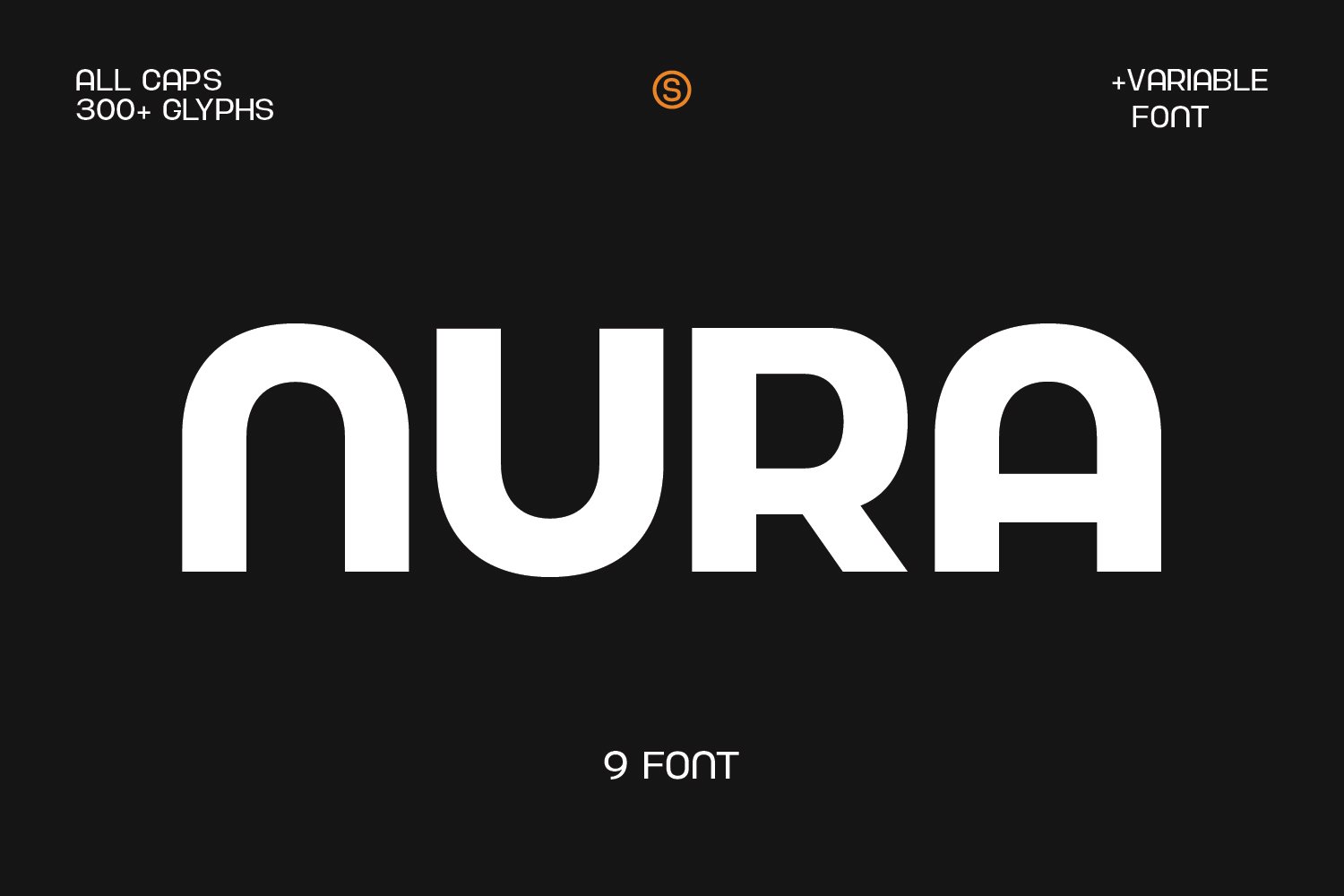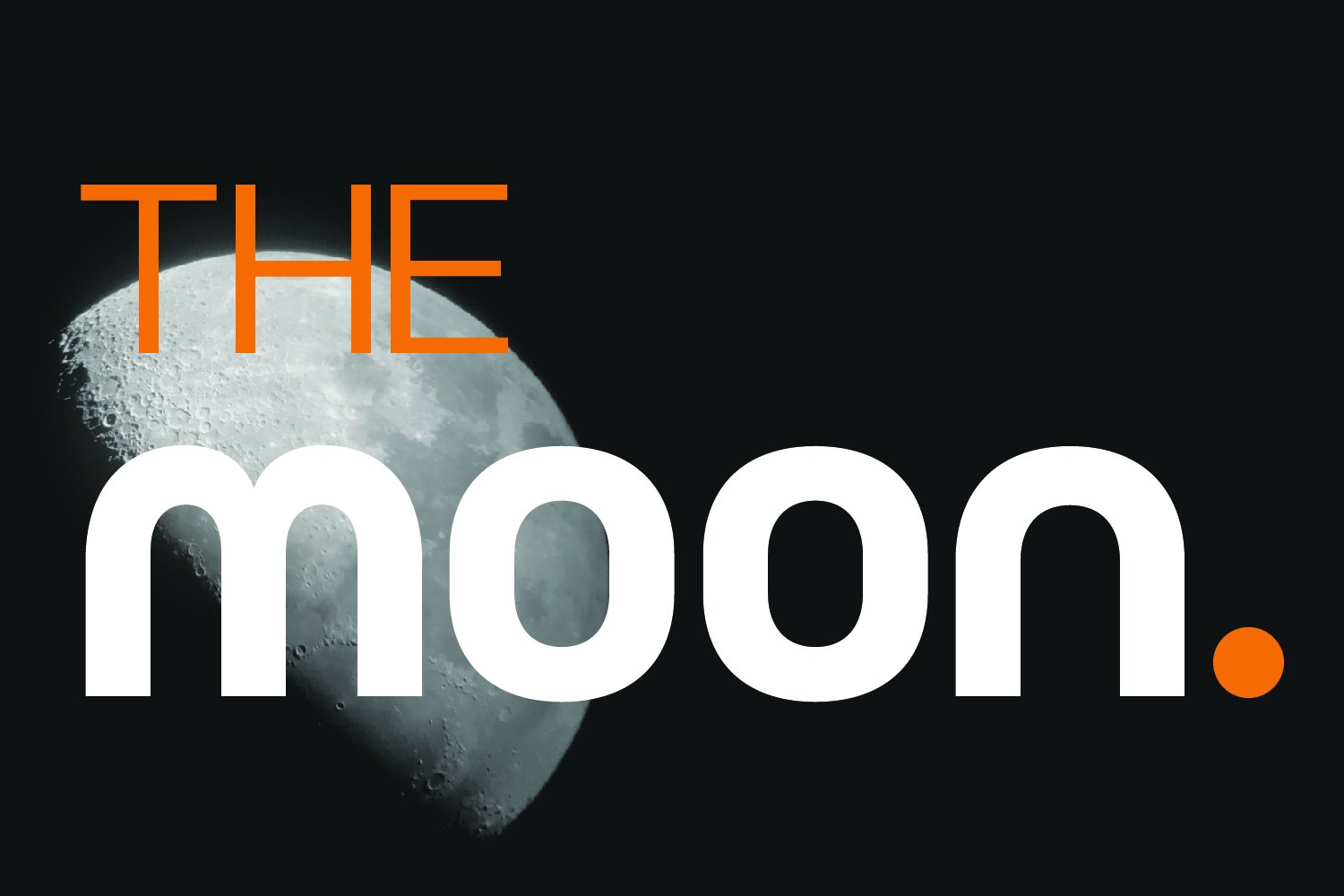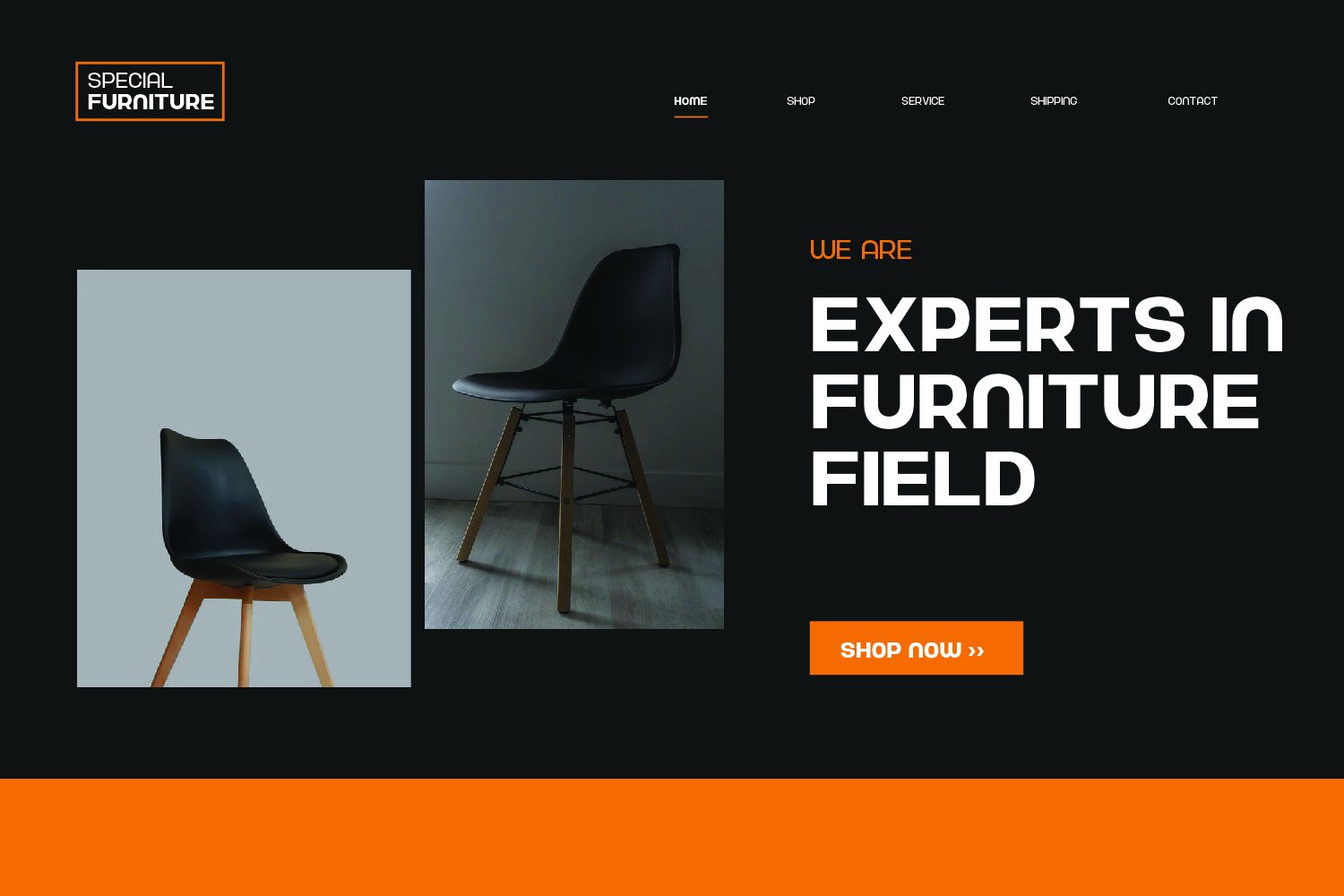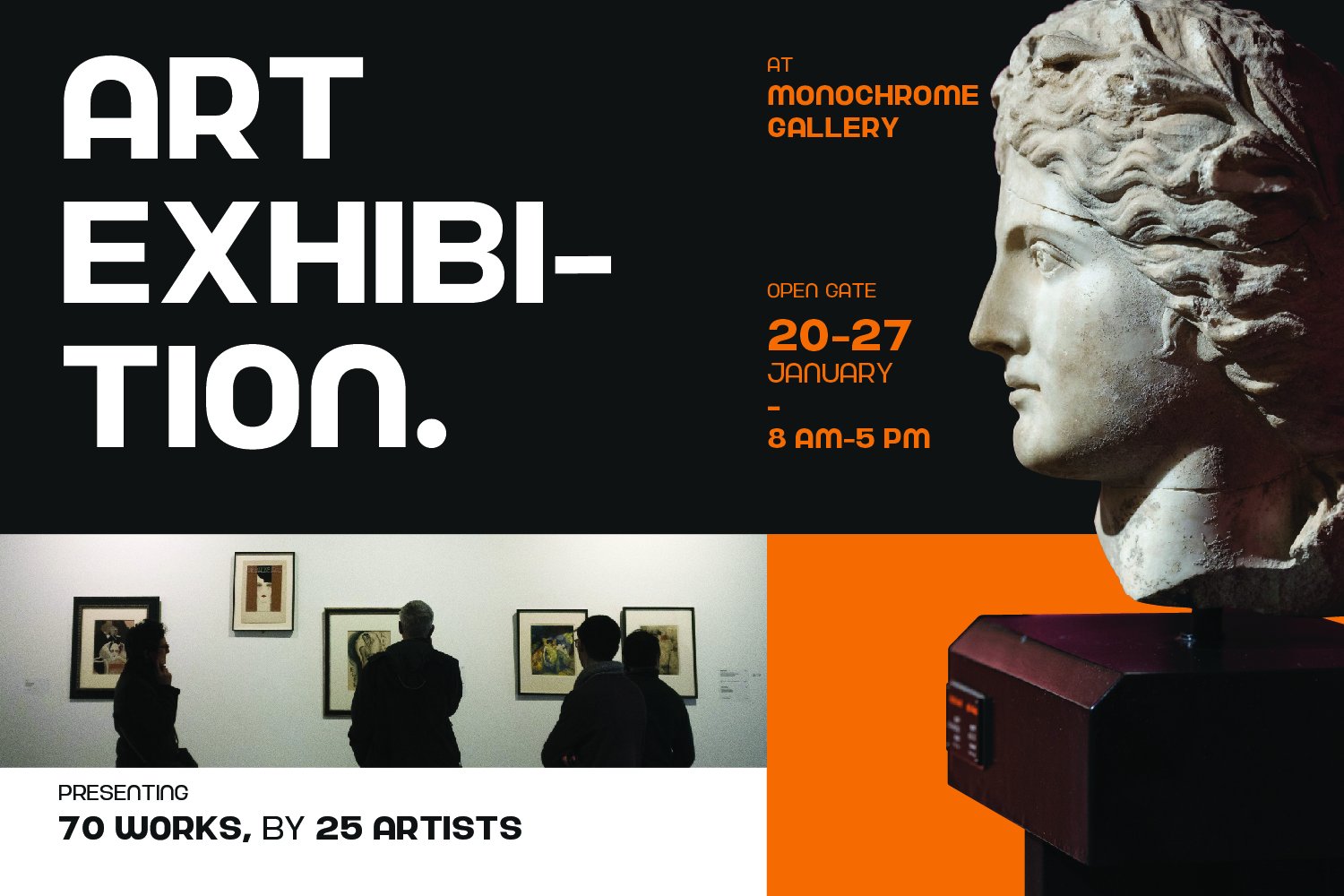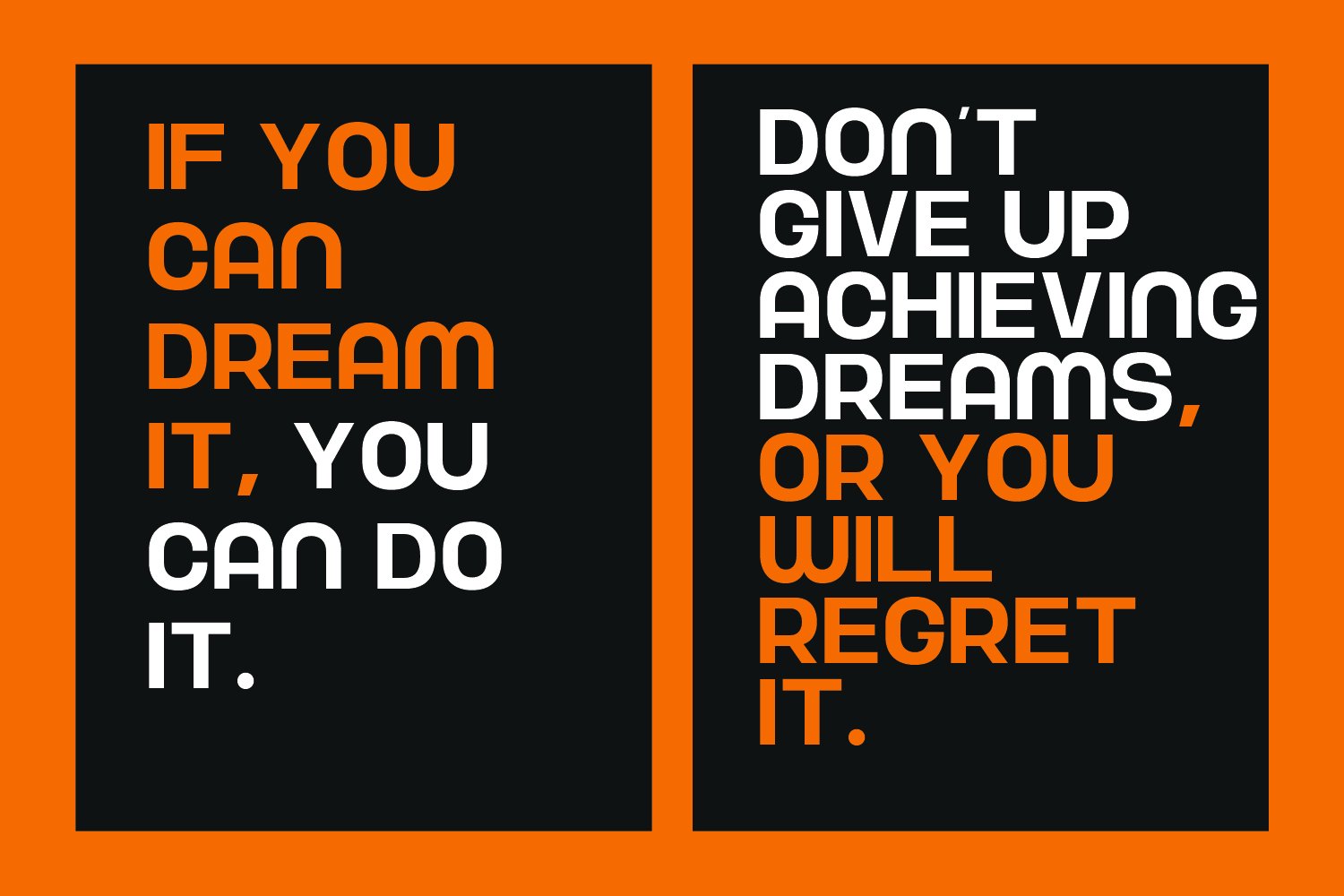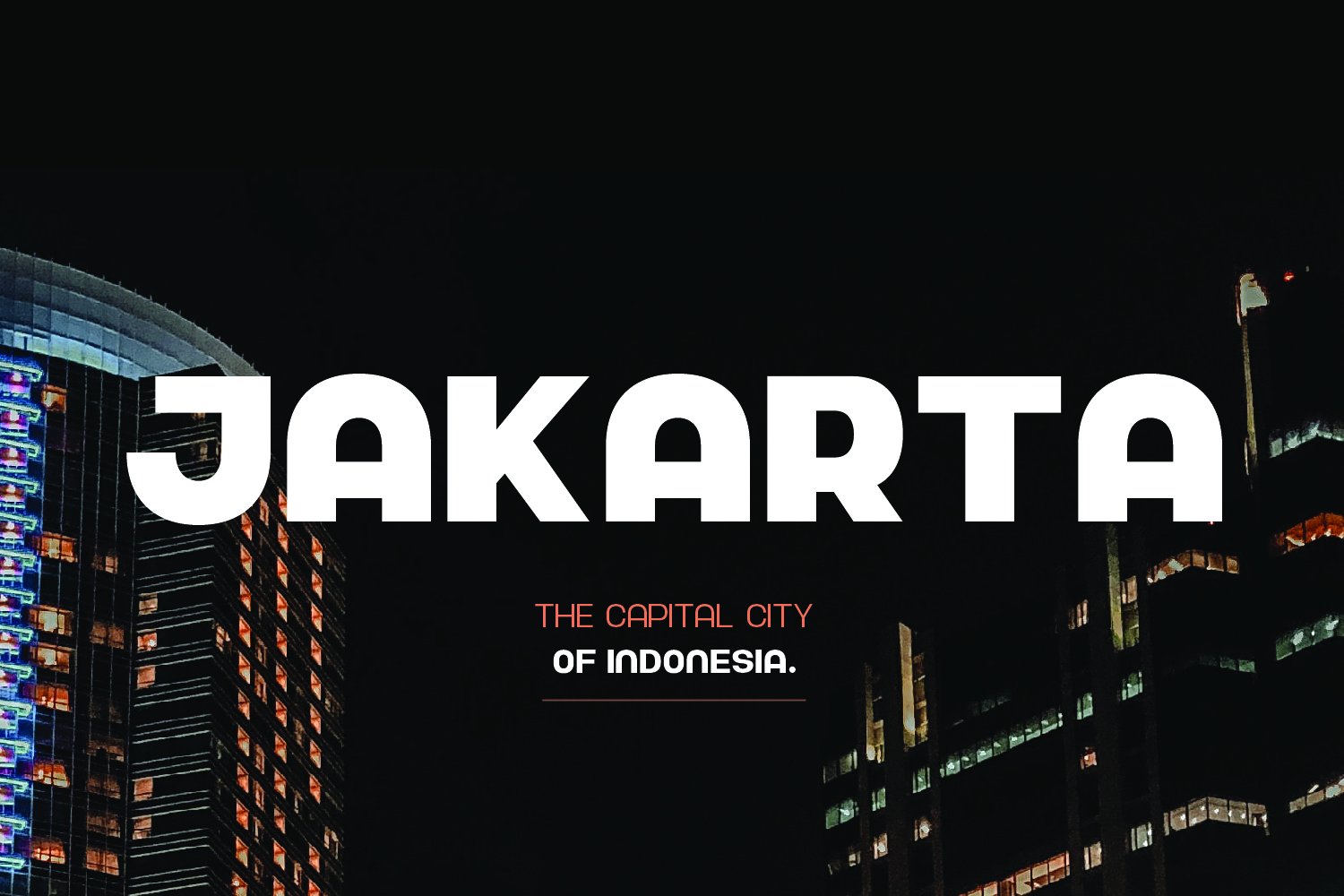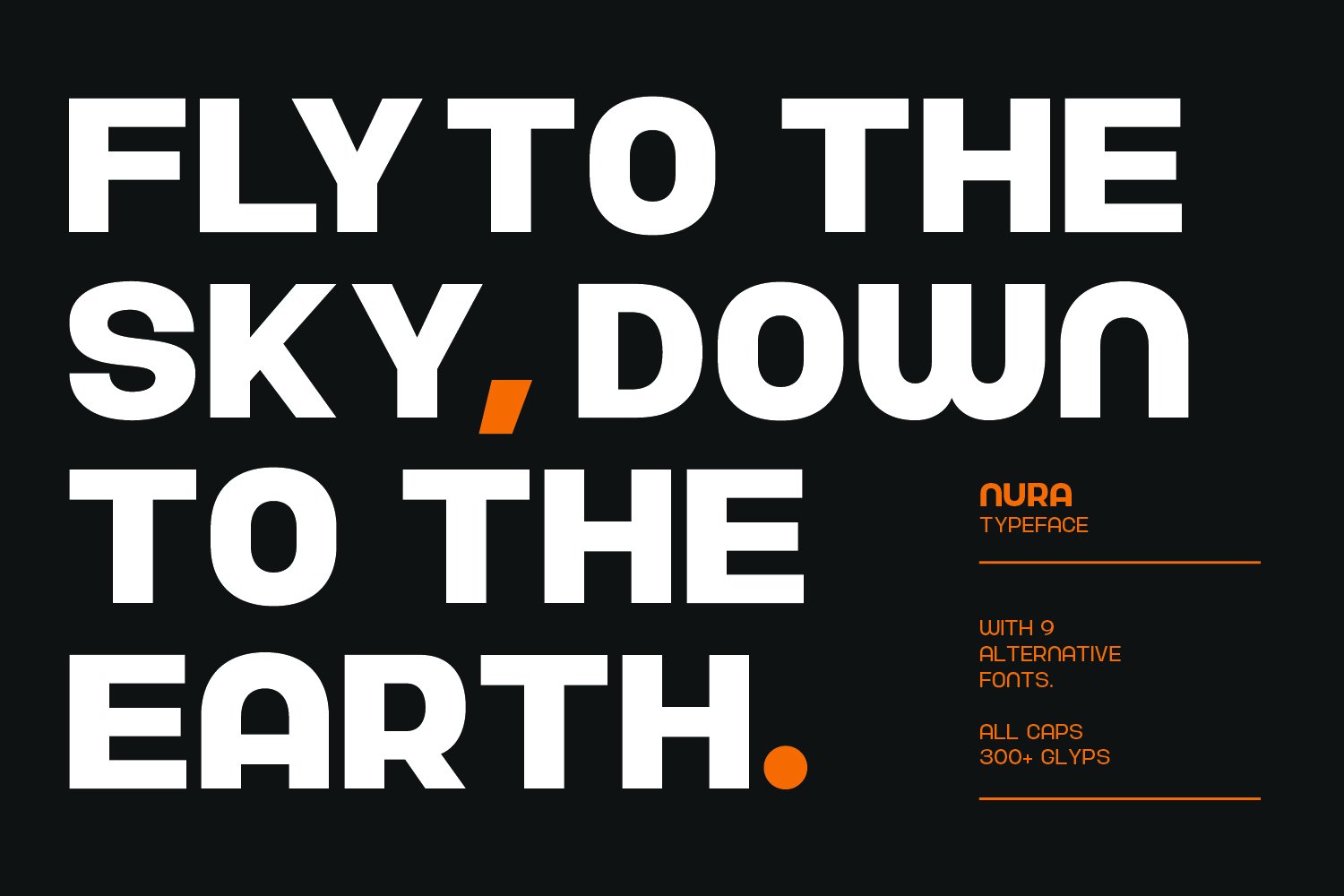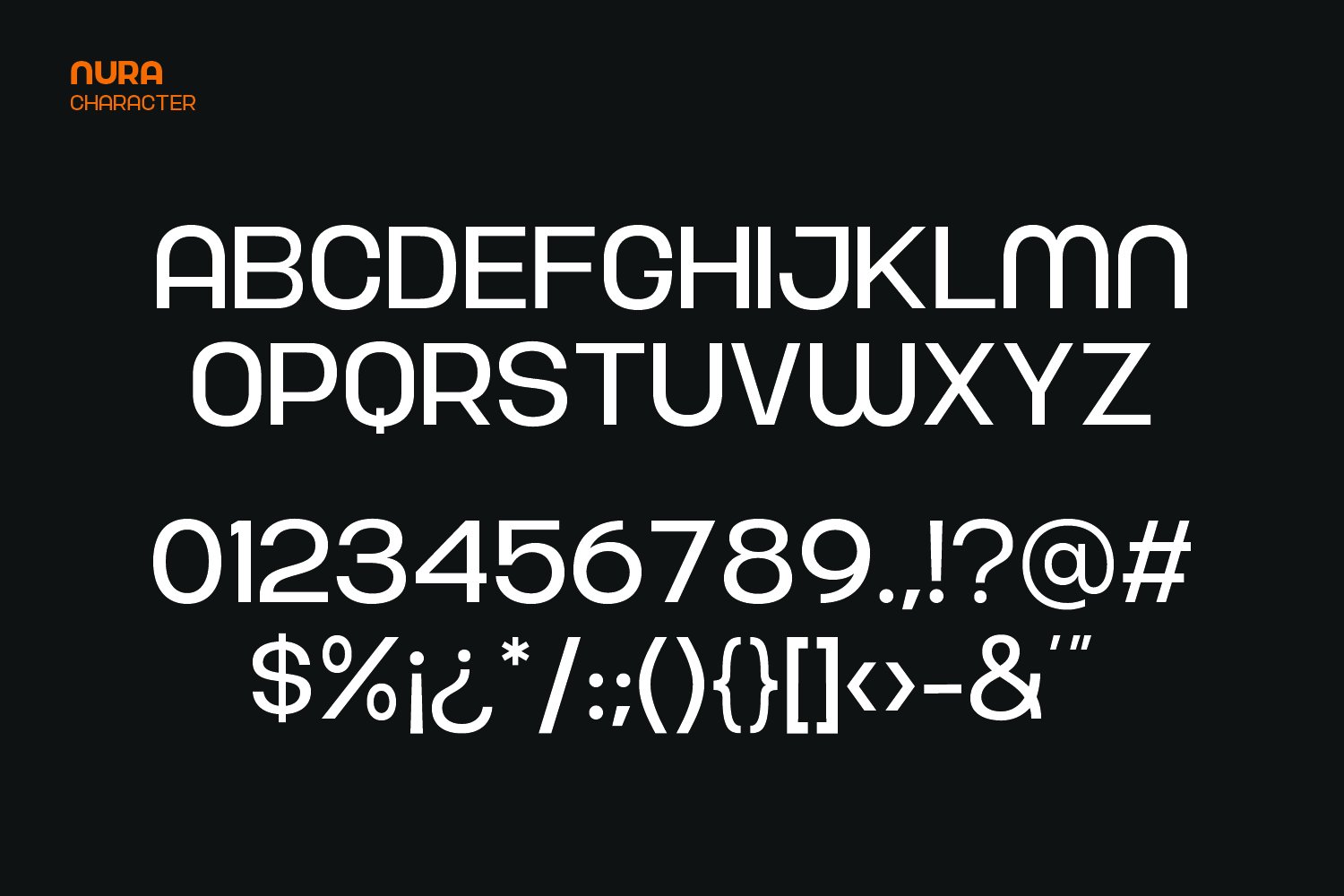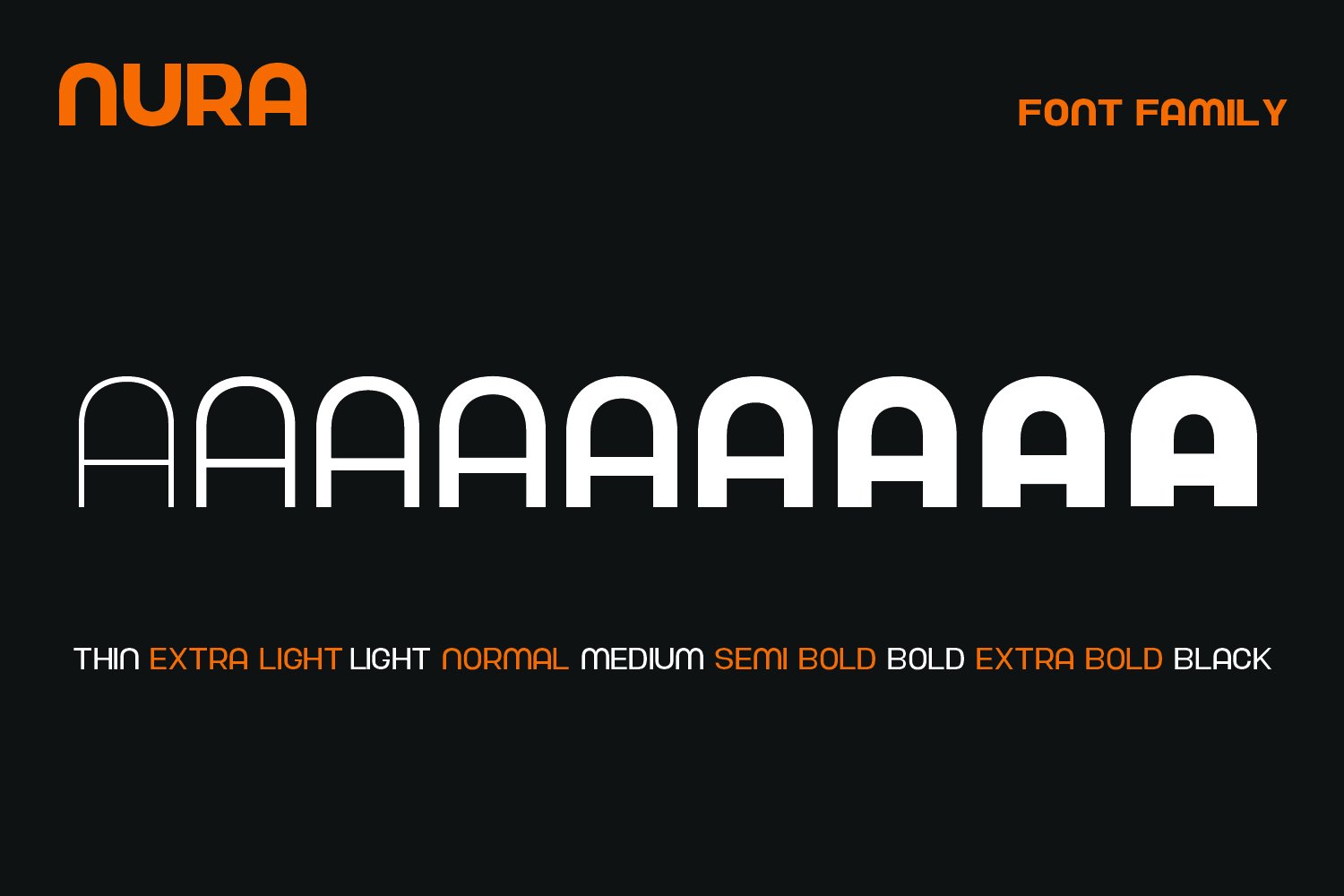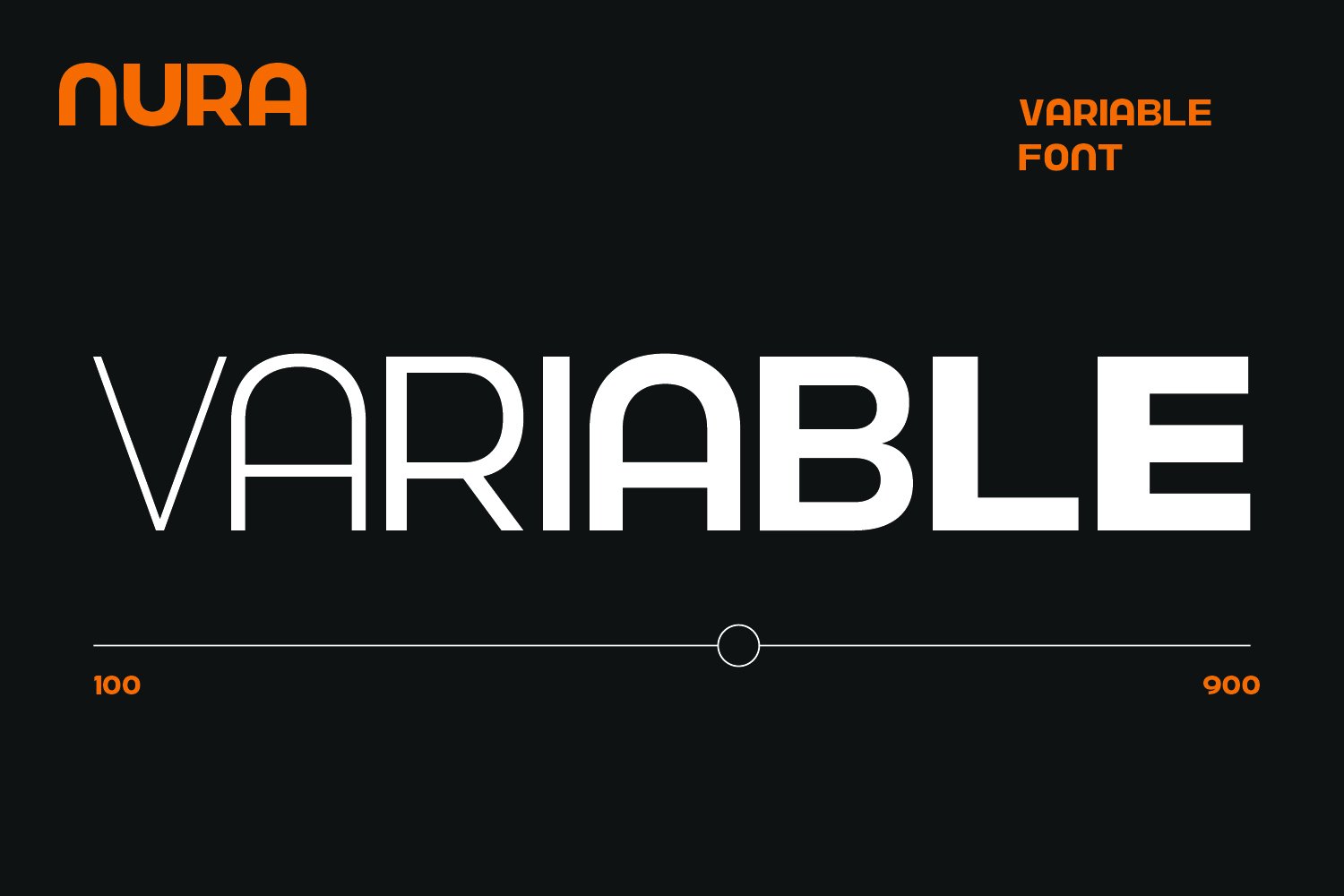
Nura Variable Font
Minimalism is not the absence of design — it is design at its most intentional. Nura Variable Font embodies this philosophy completely: a clean, intelligent variable sans serif built for brands and digital products where clarity, restraint, and typographic precision are non-negotiable design values.
Nura’s design DNA is rooted in geometric clarity with subtle humanist corrections that prevent the coldness often associated with purely mathematical type design. Each letterform has been refined for optimal legibility at both small UI sizes and large display applications, with open counters, consistent stroke width, and carefully balanced proportions that make text comfortable to read in extended passages and instantly impactful as a headline. The variable font infrastructure means weight transitions are perfectly smooth — every point on the weight axis is a usable, beautiful setting, not just named stops.
Product designers and UX teams building tech startup interfaces, SaaS product dashboards, and mobile applications will find Nura delivers the typographic clarity that modern users expect from premium digital products. Minimalist brand identity designers use Nura to create visual systems of quiet authority — the kind of branding that says everything through restraint. App marketing pages, product launch sites, and digital-first brand books built with Nura immediately communicate sophistication and technological confidence.
In print, Nura excels for corporate communications, annual reports, architectural firm profiles, fintech product brochures, and any brand material where a clean, precise sans serif signals professional excellence. Pair it with generous white space, a restrained color palette, and high-quality imagery for a visual identity system that resonates with discerning, educated audiences.